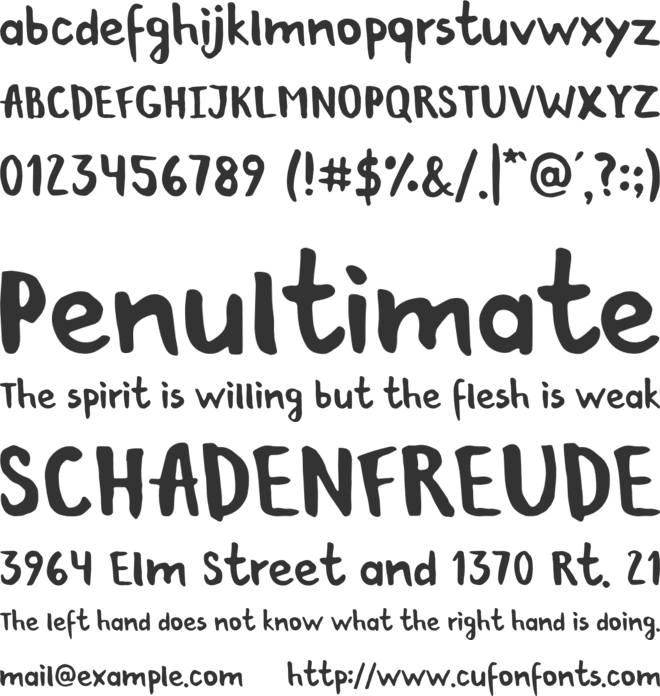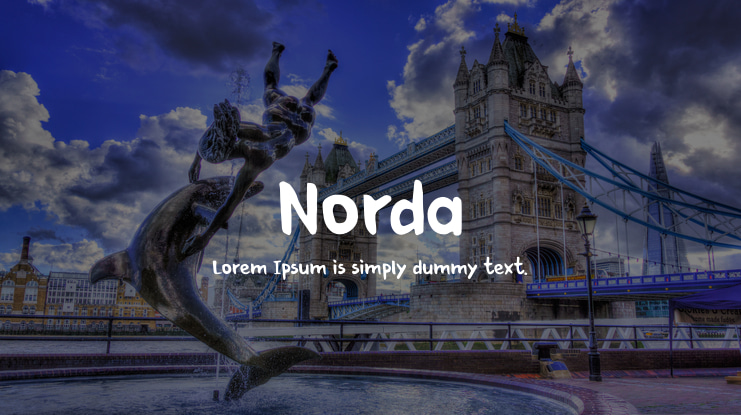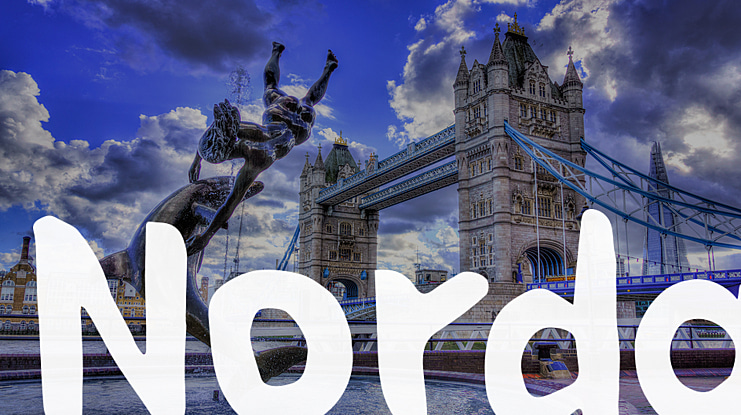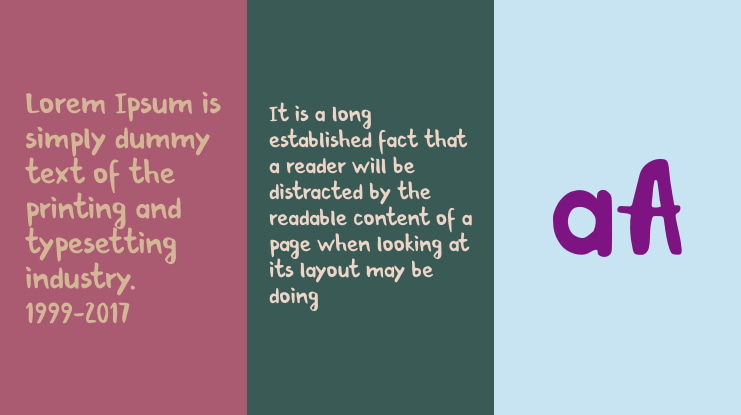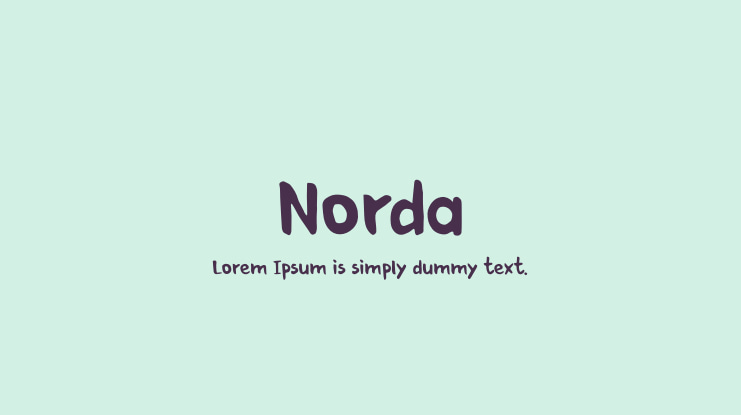
Norda Font
This is a brush display typeface. It’s designed to look like you just drew these letters perfectly. This font has a handwritten feel so it will give your design personal touch. Bold characters will stand out and be easy to read. Norda Hand Lettered Font is perfect for logo design, branding, art prints, wedding cards and invitations, packaging, business cards, greeting cards, posters, magazines, social media, home decors, stationary, blogs, website design, and more. This font works with any application on MAC, Windows, or Ubuntu that supports basic font files, including Adobe Photoshop, Adobe Illustrator, Microsoft Paint, Corel, Microsoft Word, Cricut, Figma, and many, many others!